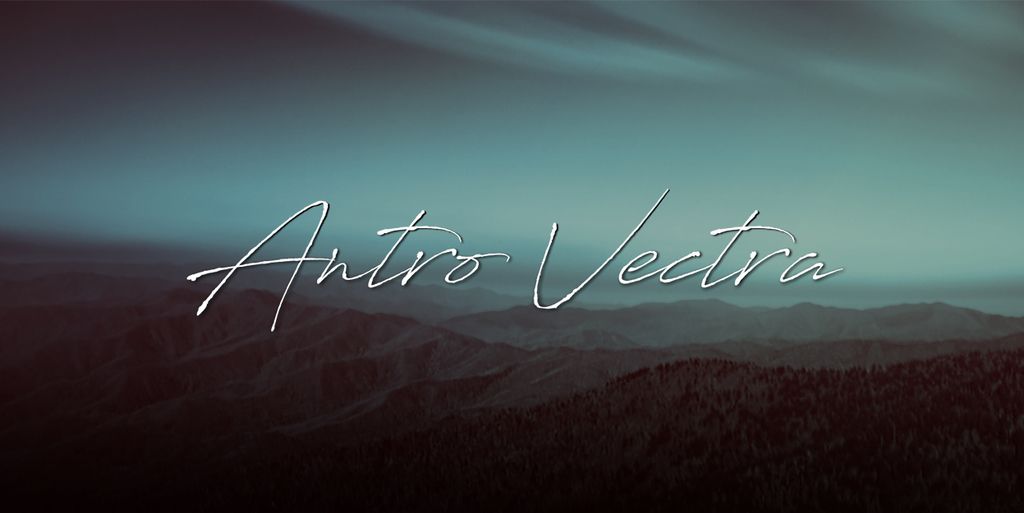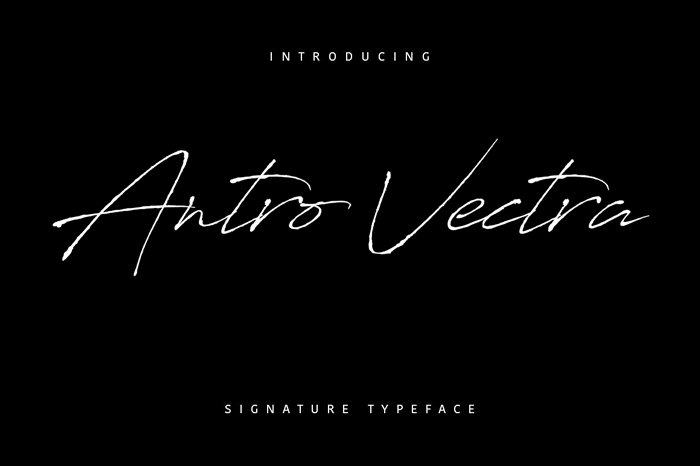
Antro Vectra Script Font
Antro Vectra Script Font is available in the TTF file format. This is a fraced typeface that is similar to the Shopping script font. This makes the content look great. If you are looking for a terrible script proper on your format then it’s proper right here.
This introduced on meal posters, meals menus, and meal packaging. It’s far simply proper for packaging and to any amount in addition. Because of its form of stylish curves, it’s far much like kollektif font terrific for a higher font pairing. It’s far used for which embody charge and appeal to the save you product.
Download This font gives an effect on the heterosexual brush and natural hand lettering. The thick and black weights are top-notch for showcases. Designers have located everything on one’s fonts. They‚Äôve saved they all in a queue to are looking for guidelines from the excellent who provide the proper designs.